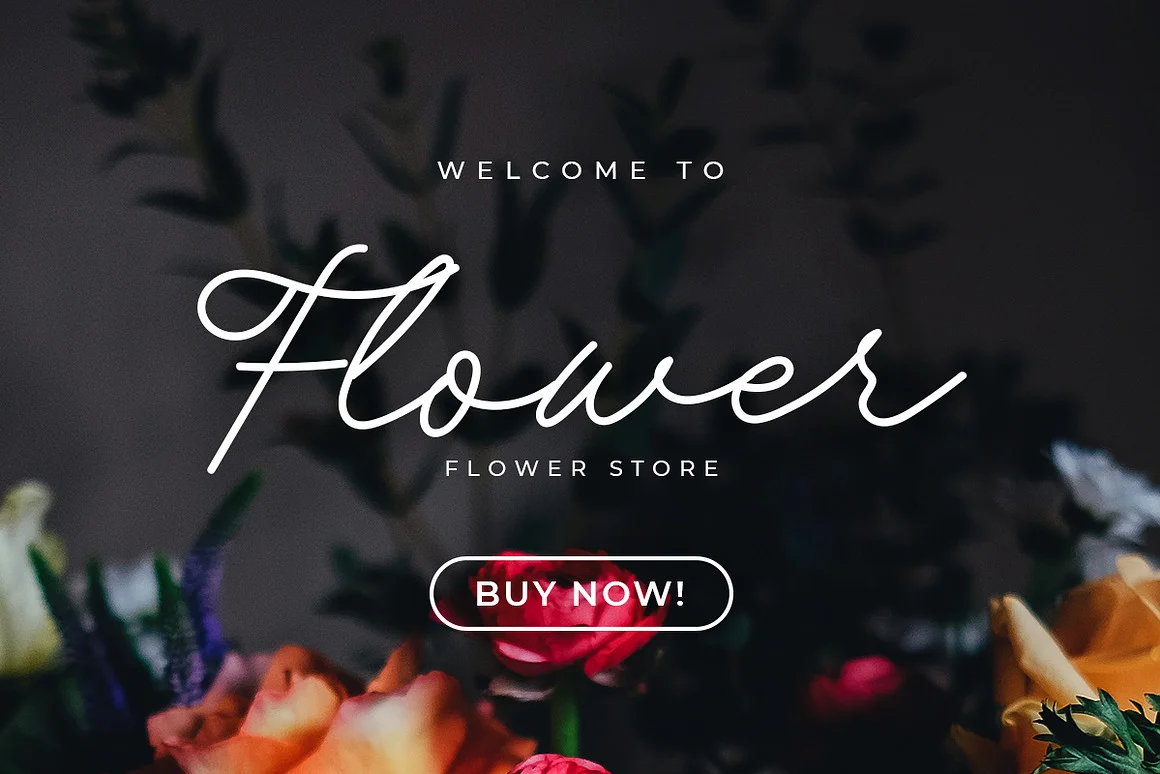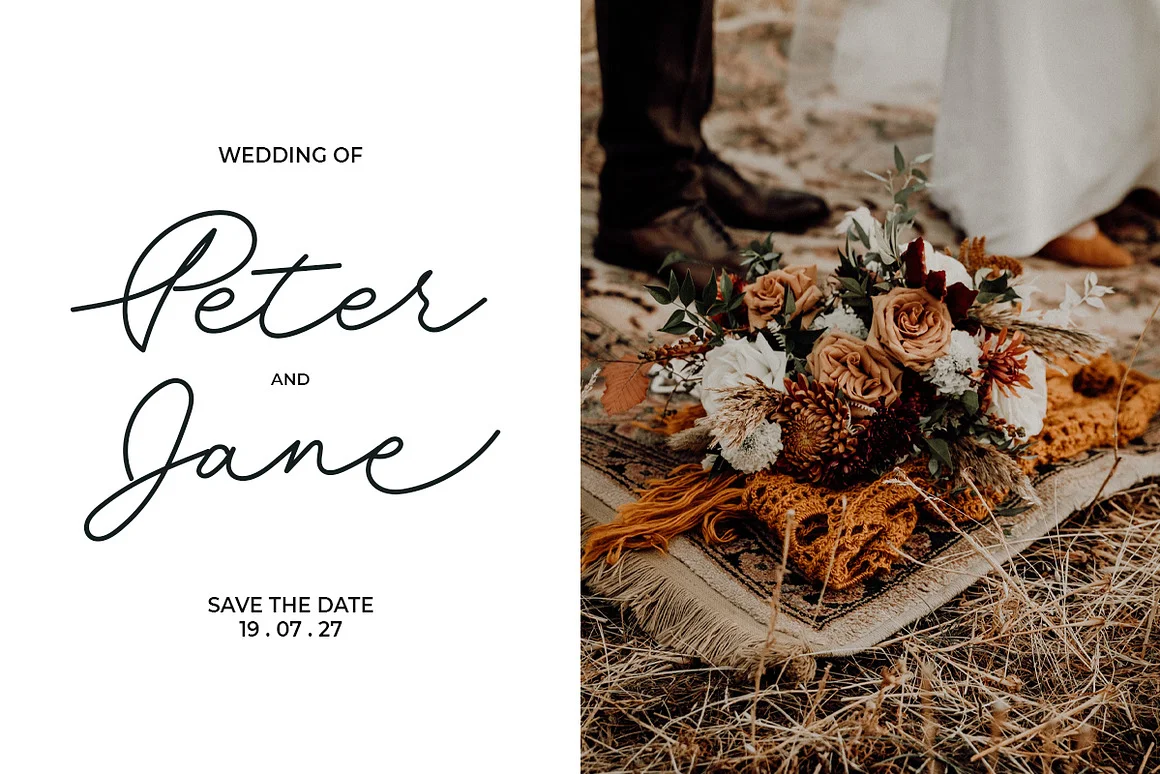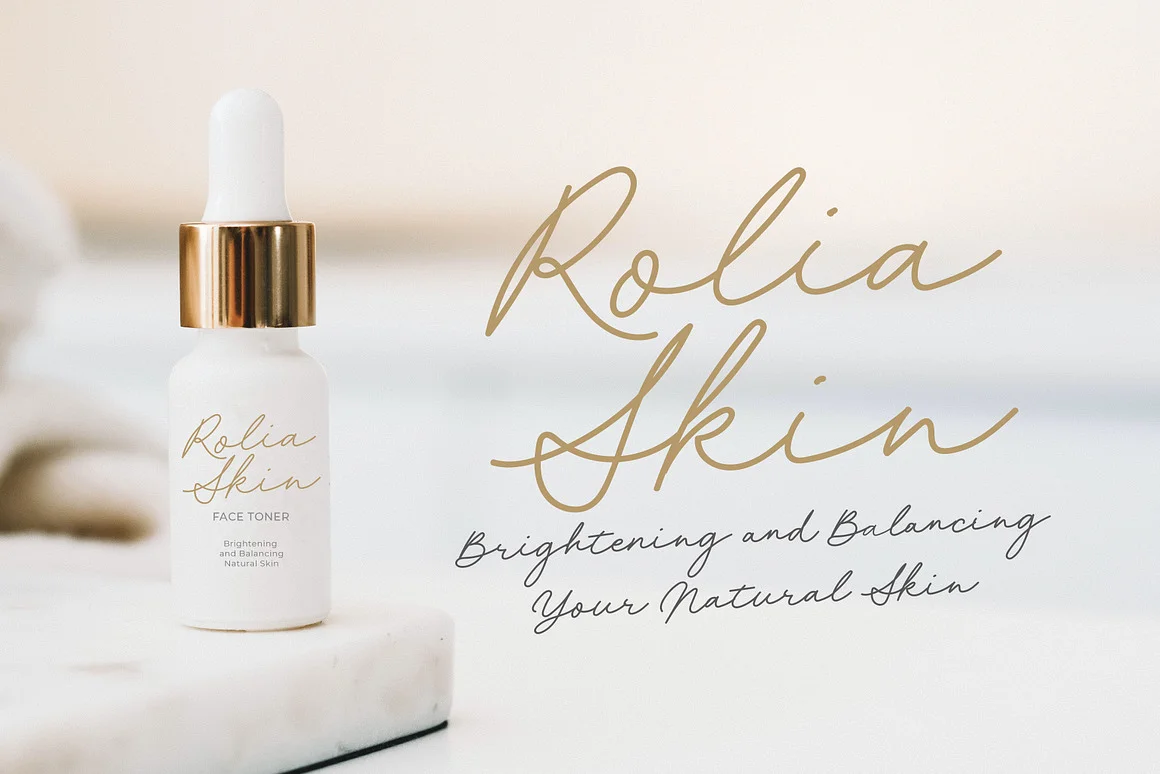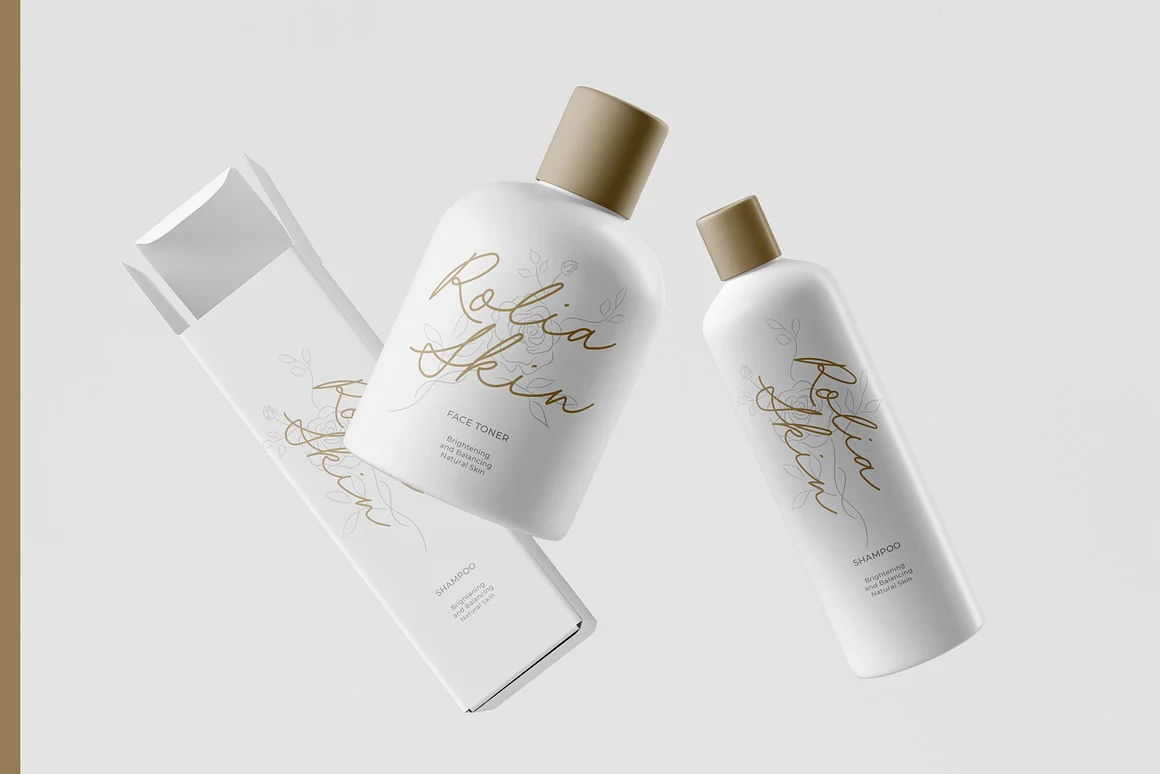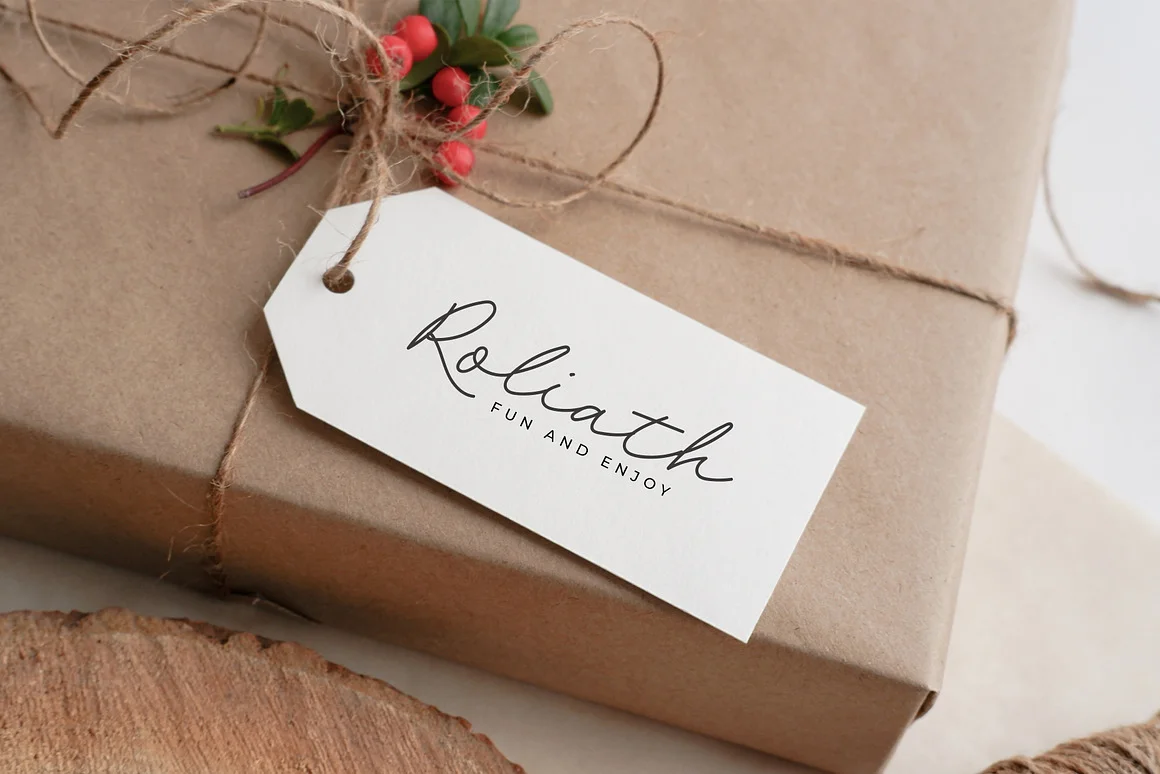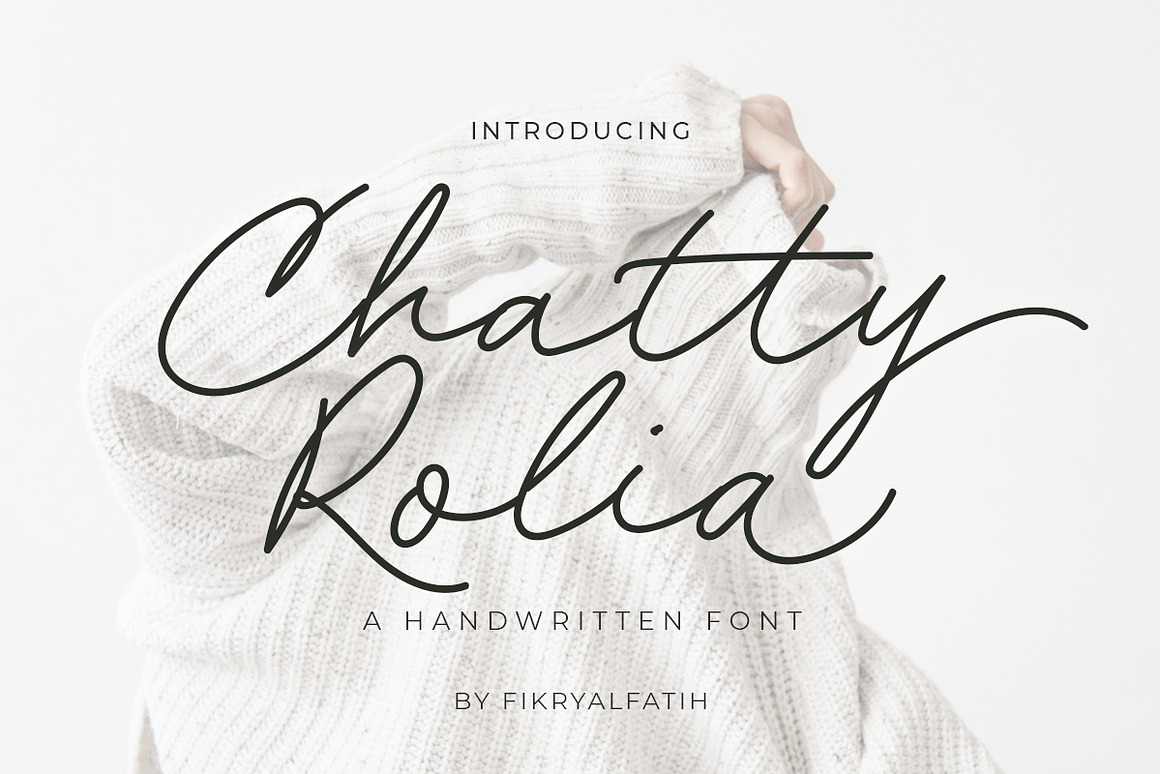
Chatty Rolia - Handwritten Script Font
There is a particular satisfaction in finding a typeface that delivers the kind of restraint that lets content lead without compromise. Chatty Rolia - Handwritten Script consistently provides it. The typeface brings a warm, personal sensibility to a broad range of creative disciplines, with a confident voice that adapts to diverse briefs that holds up whether the work is print-first or screen-first.
In practice, Chatty Rolia - Handwritten Script proves particularly effective for personal stationery, social media graphics, gift packaging, thank-you cards, advertising campaigns. Designers reaching for it find that the type decisions feel resolved rather than laboured — a useful quality when client timelines are tight.
The range of applications extends to signage systems, poster creation, recipe cards, environmental graphics. That breadth is deliberate: the proportions and spacing were stress-tested across a wide range of mock briefs before the typeface was finalised.
Letter height variation is intentional: ascenders and descenders extend slightly beyond standard cap height to reproduce the rhythm of genuine handwriting. Connecting strokes are optically weighted so they appear continuous across words without overprinting.
The consistent rhythm of Chatty Rolia - Handwritten Script across a full paragraph creates the kind of even grey value that makes extended reading comfortable, a detail that matters more in long-form content than its subtlety might suggest.
Graphic designers working on identity systems find Chatty Rolia - Handwritten Script a reliable choice for projects that demand both personality and restraint. The design avoids the self-conscious quirkiness that dates quickly, settling instead for considered distinctiveness that holds up over time.